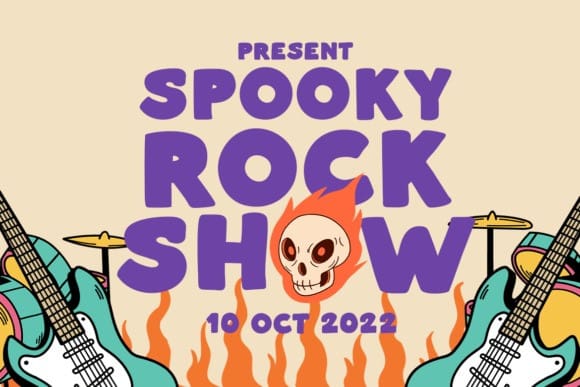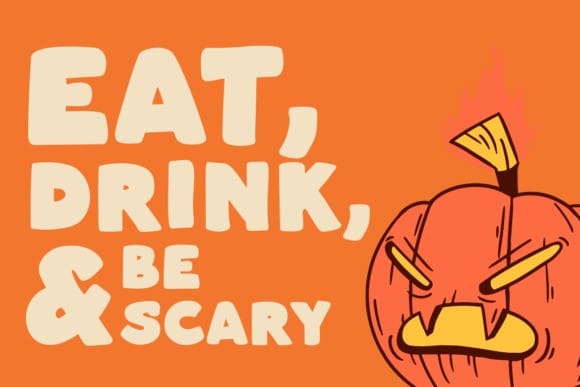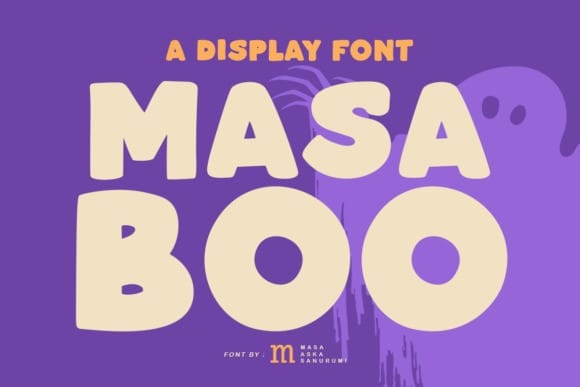
Masa Boo Font
Masa Boo Font is an incredibly unique and interesting display font. Spooky and a bit creepy, this font will make each of your designs stand out.